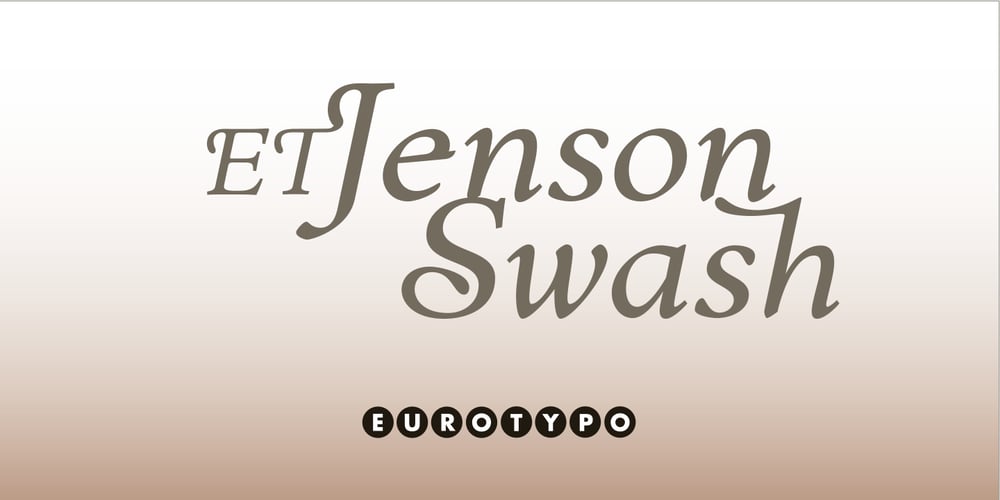
ET Jenson Swash
ET Jenson Swash font
ET Jenson Swash Font Family was designed by Olcar Alcaide and published by Eurotypo. ET Jenson Swash contains 1 styles and family package options. ET Jenson Swash is a font enriched with ligatures and variable shapes that give it more plasticity and expressiveness. Can be used in combination with any of the ET Jenson family fonts. “Swashes” or typographic ornaments were introduced in the 16th century by Ludovico degli Arrighi who significantly influenced Italian and French designers.